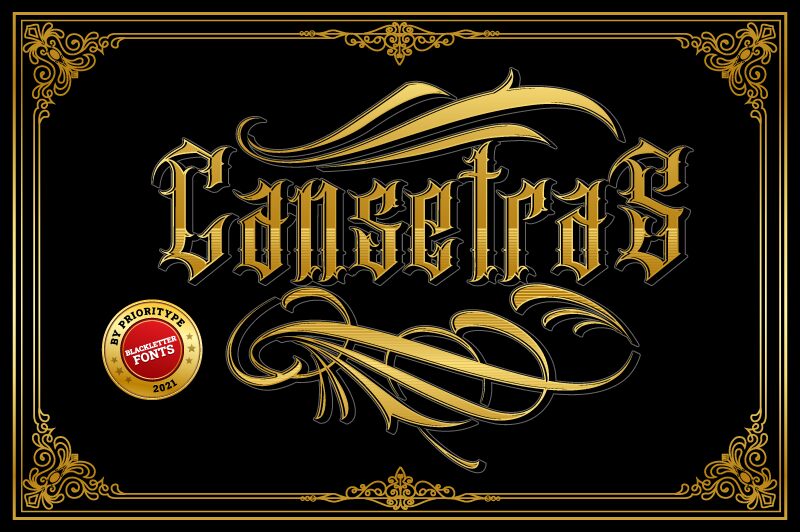
Cansetras, the gothic semi-light font designed by Prioritype Co is the perfect choice for bold, edgy projects that demand a touch of darkness. Its extra-condensed width adds a sense of urgency and intensity to any design, making it ideal for use in logos, headlines, and graphic design projects. Whether you're looking to inject some Gothic flair into your next horror movie poster or want to create a striking brand identity for an alternative fashion line, Cansetras is the font you need. Its unique style will make sure that your project stands out from the crowd and leaves a lasting impression on your audience.